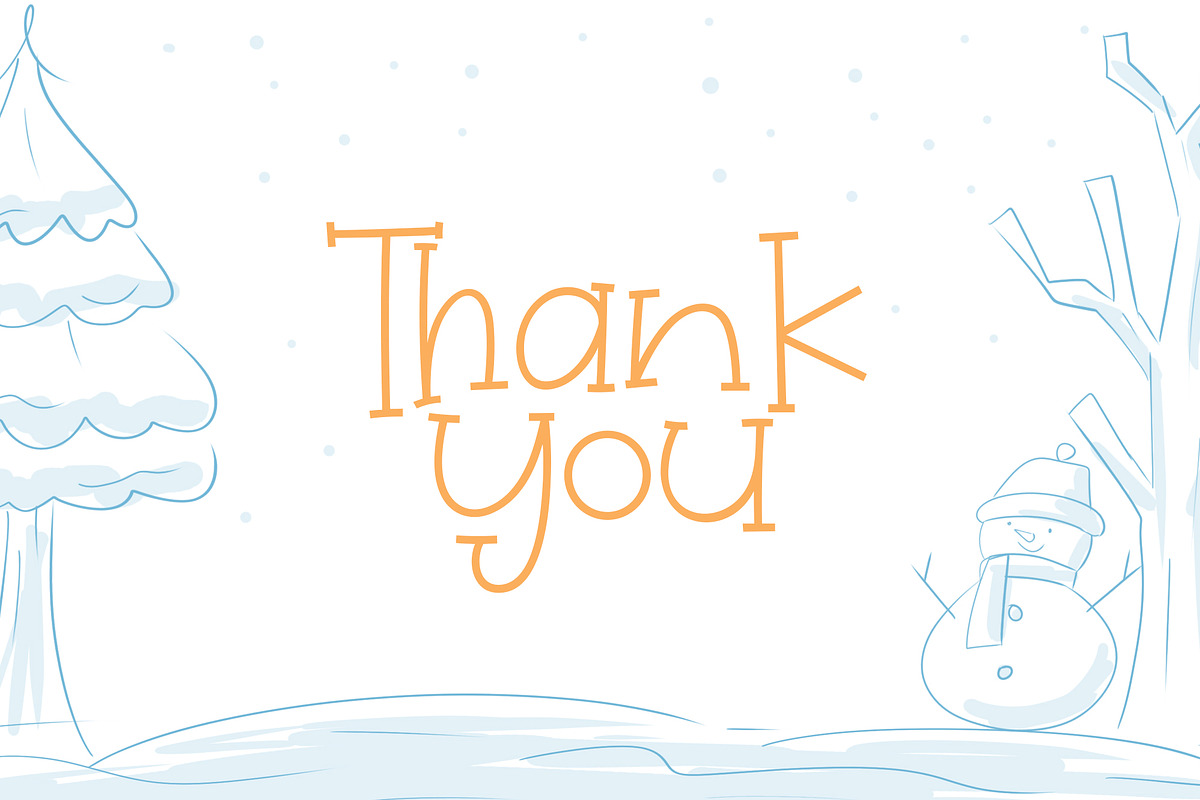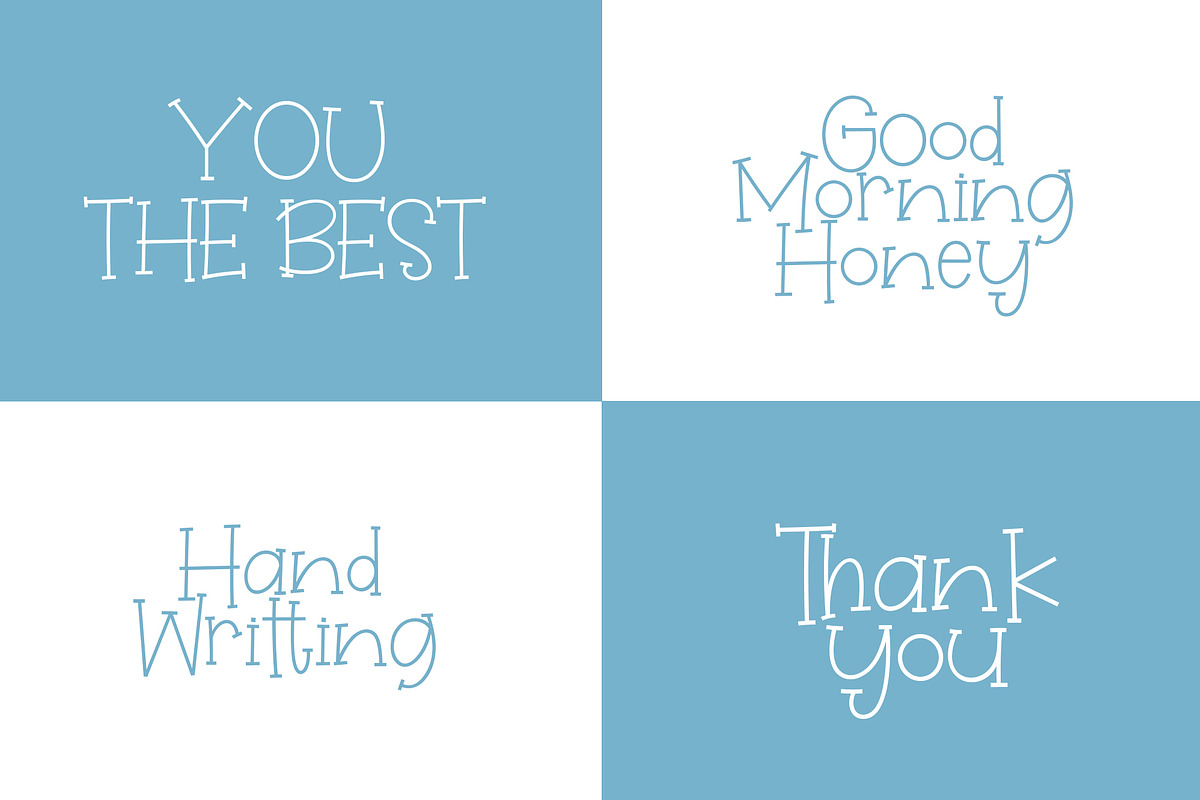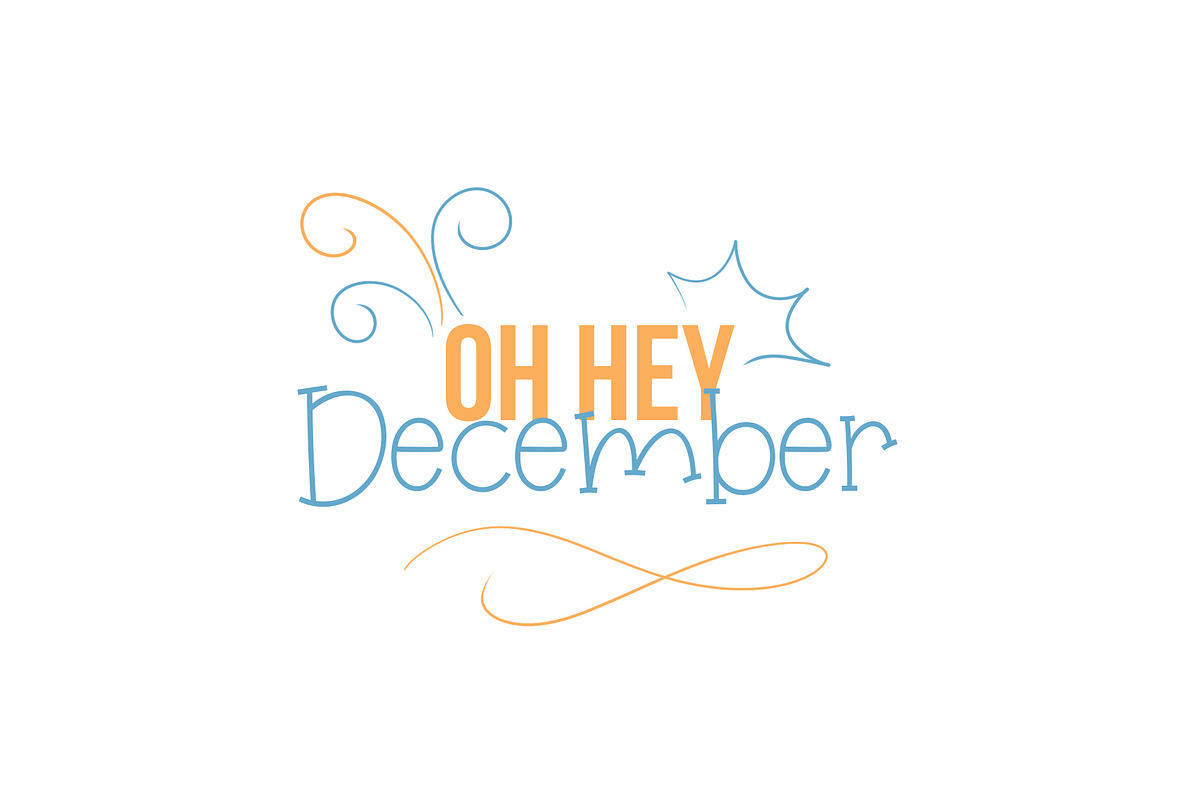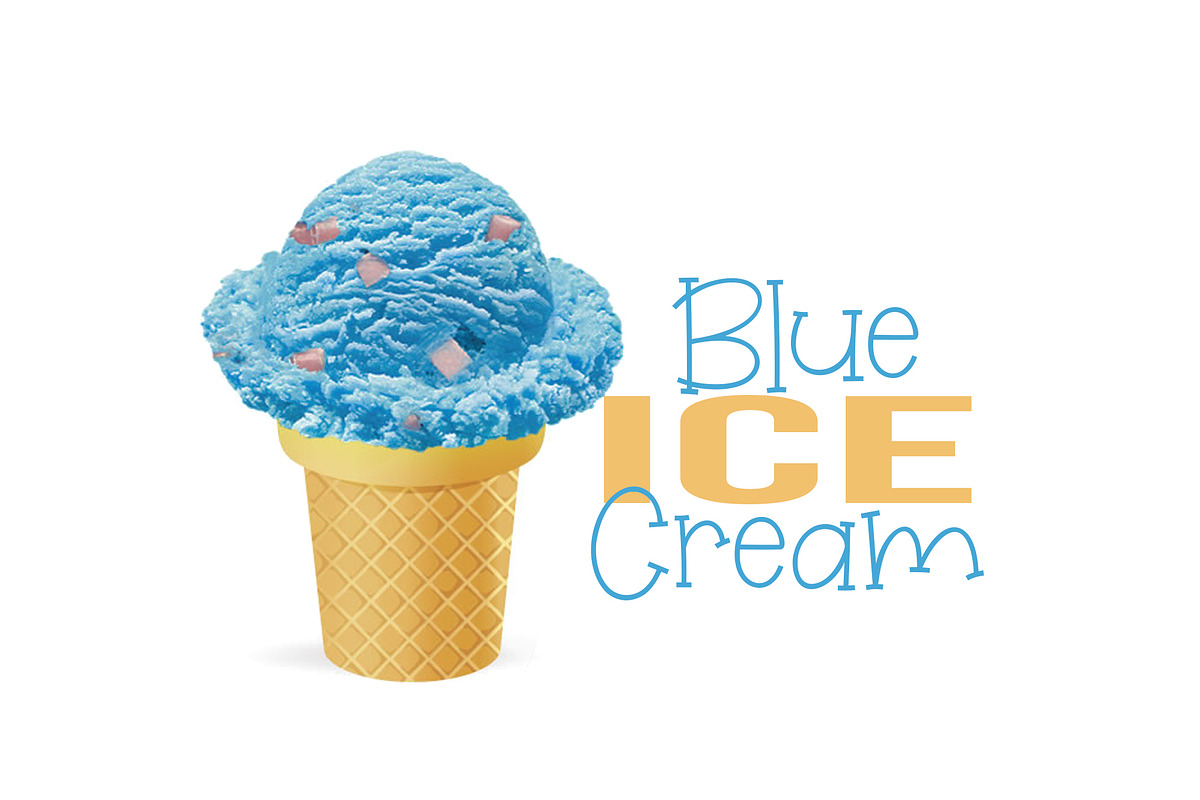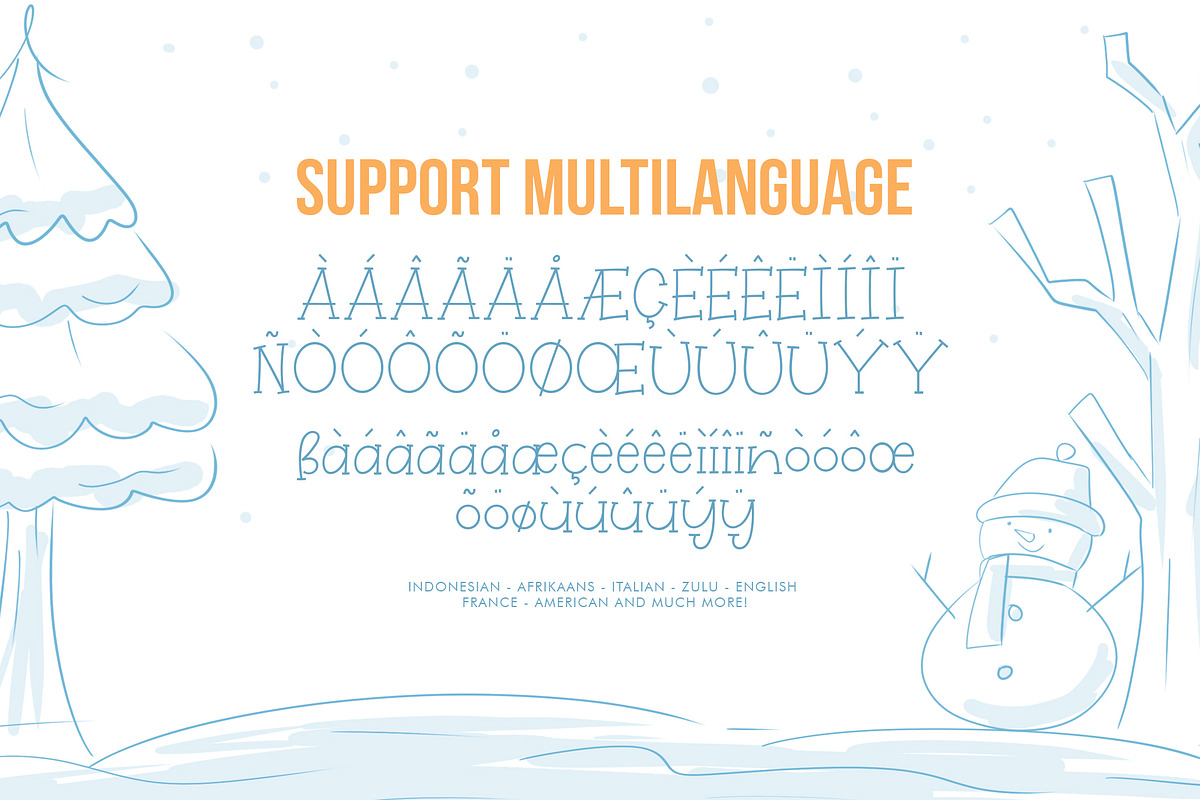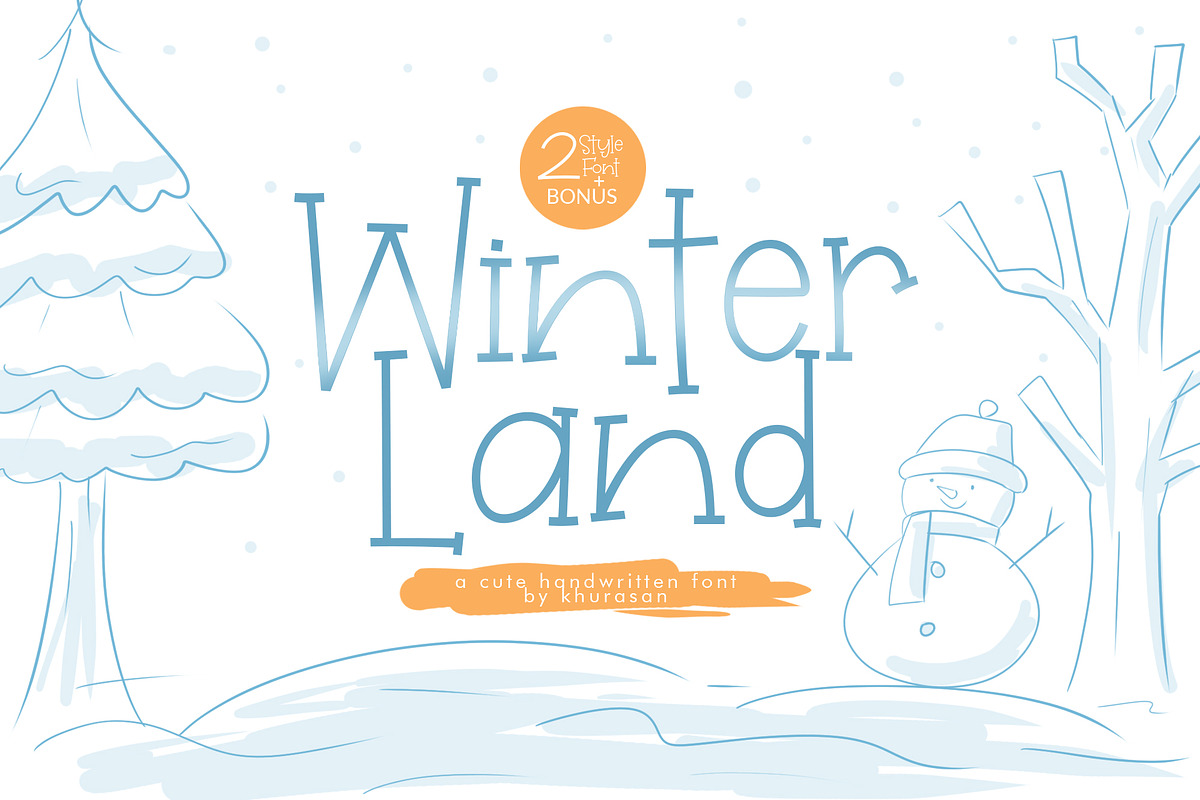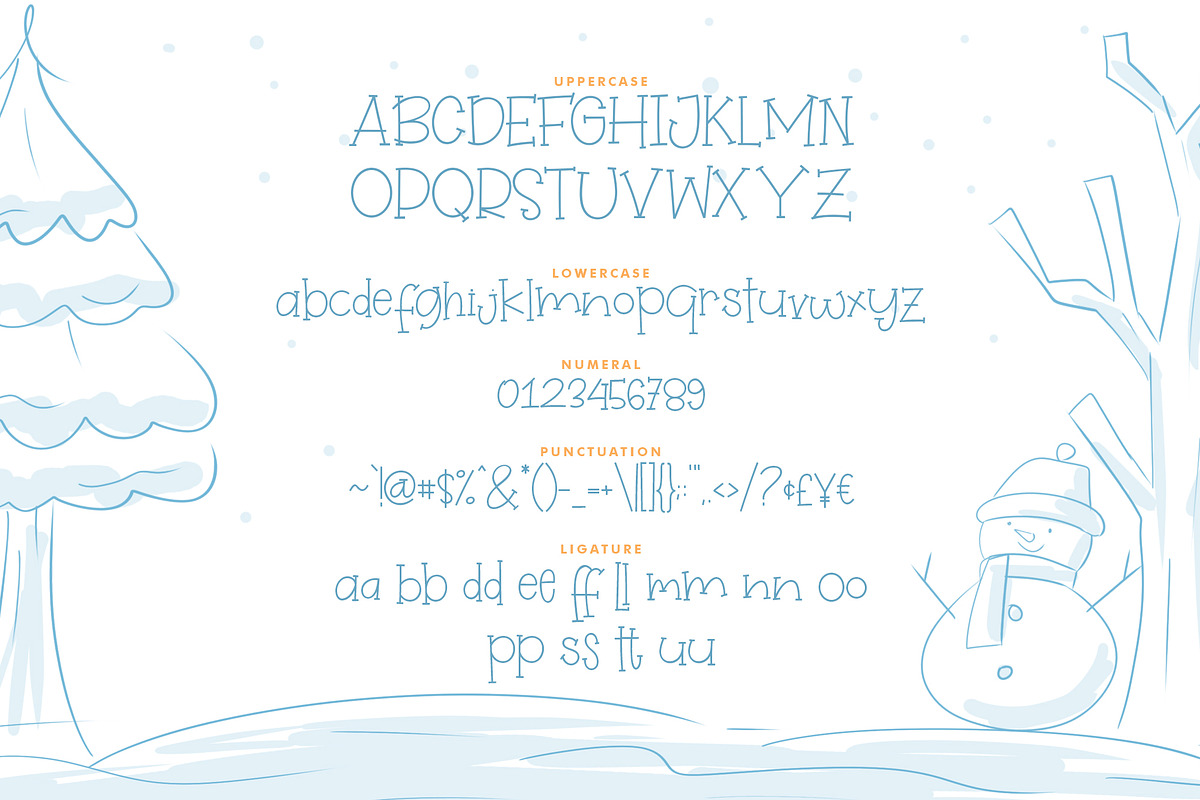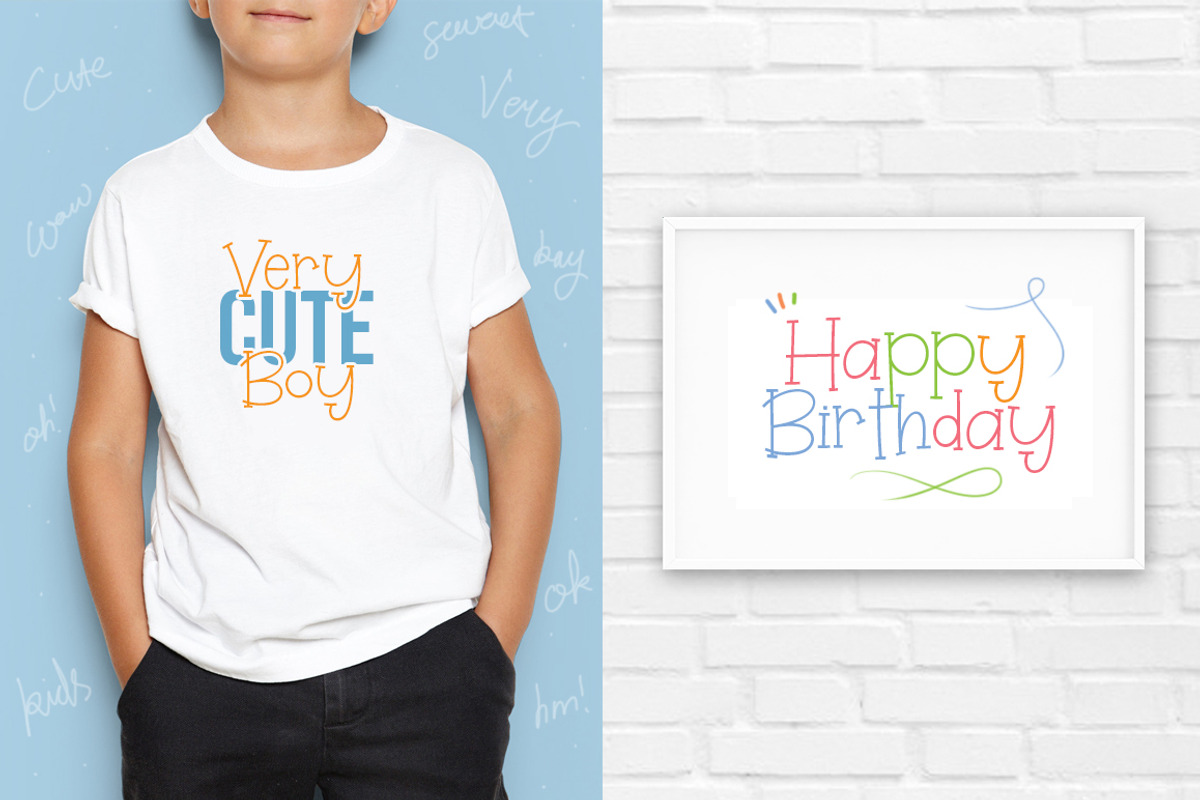
Winterland Font
Winterland font a display typeface awesome character with 2 different style, regular and slant. Winterland font it’s perfect for namecard, poster, logo, magazine, cover, banner, tshirt and headers, or even large-scale artwork.
Numeral & Punctuation
Multilingual support ÀÁÂÃÄÅÇEÈÉÊËIÌÍÎÏNÑOØÒÓÔÕÖUÙÜÚÛWYÝŸŸÆ
Winterland Font by khurasan fits naturally into Branding, posters, packaging, typography.